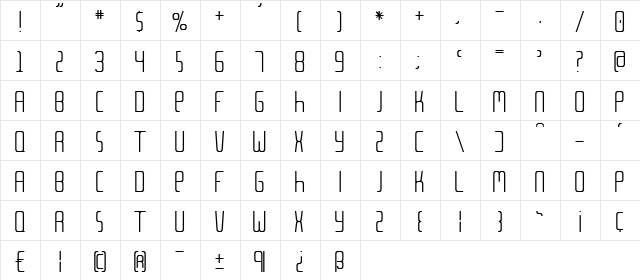
Meta Language Regular
| Foundry | [ Divide By Zero ] Fonts |
| Designer | Tom Murphy 7 |
Design Context for Meta Language Typeface
Meta Language is a composed and adaptable typeface that performs quietly and consistently across a wide range of design contexts.